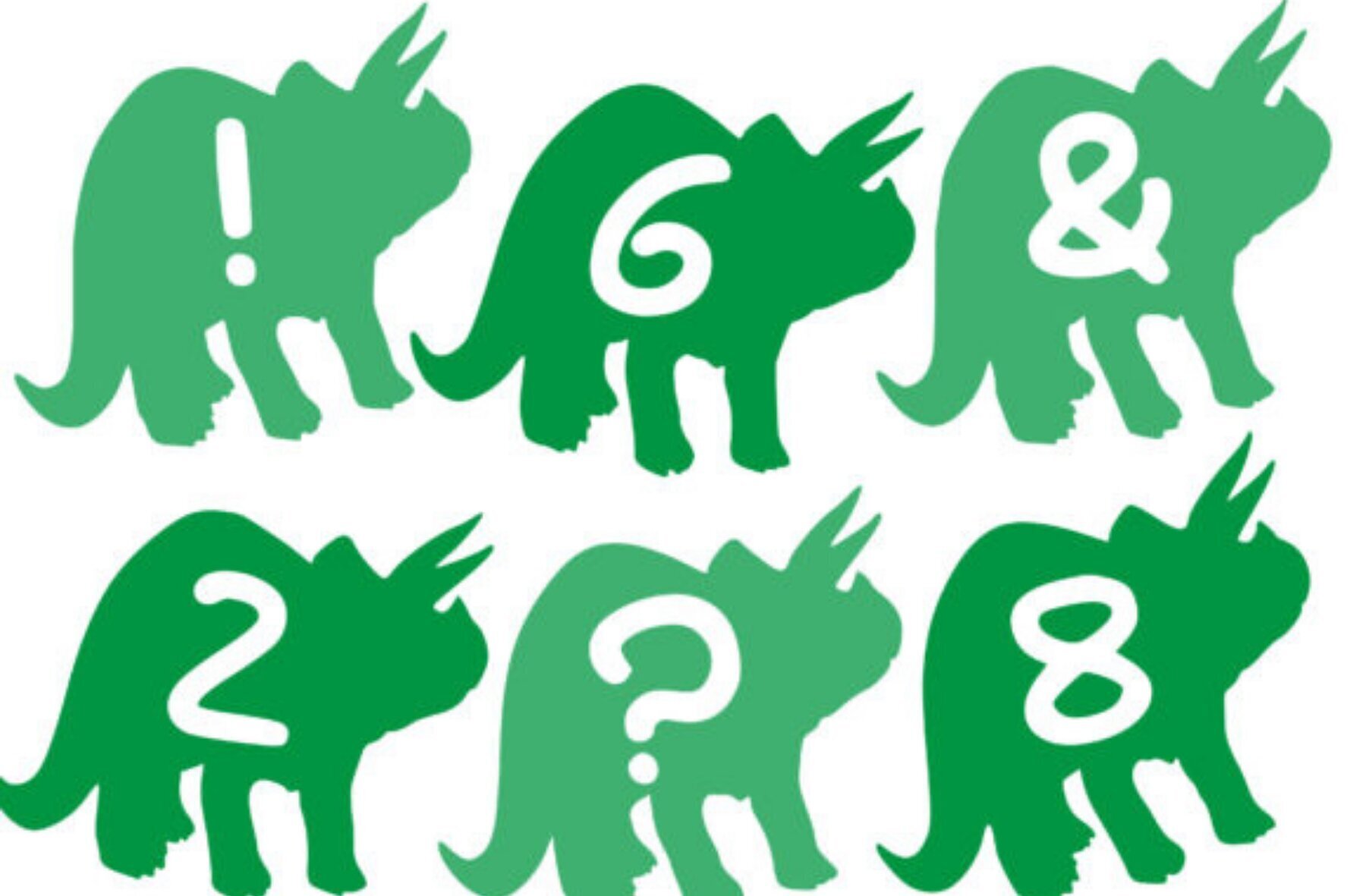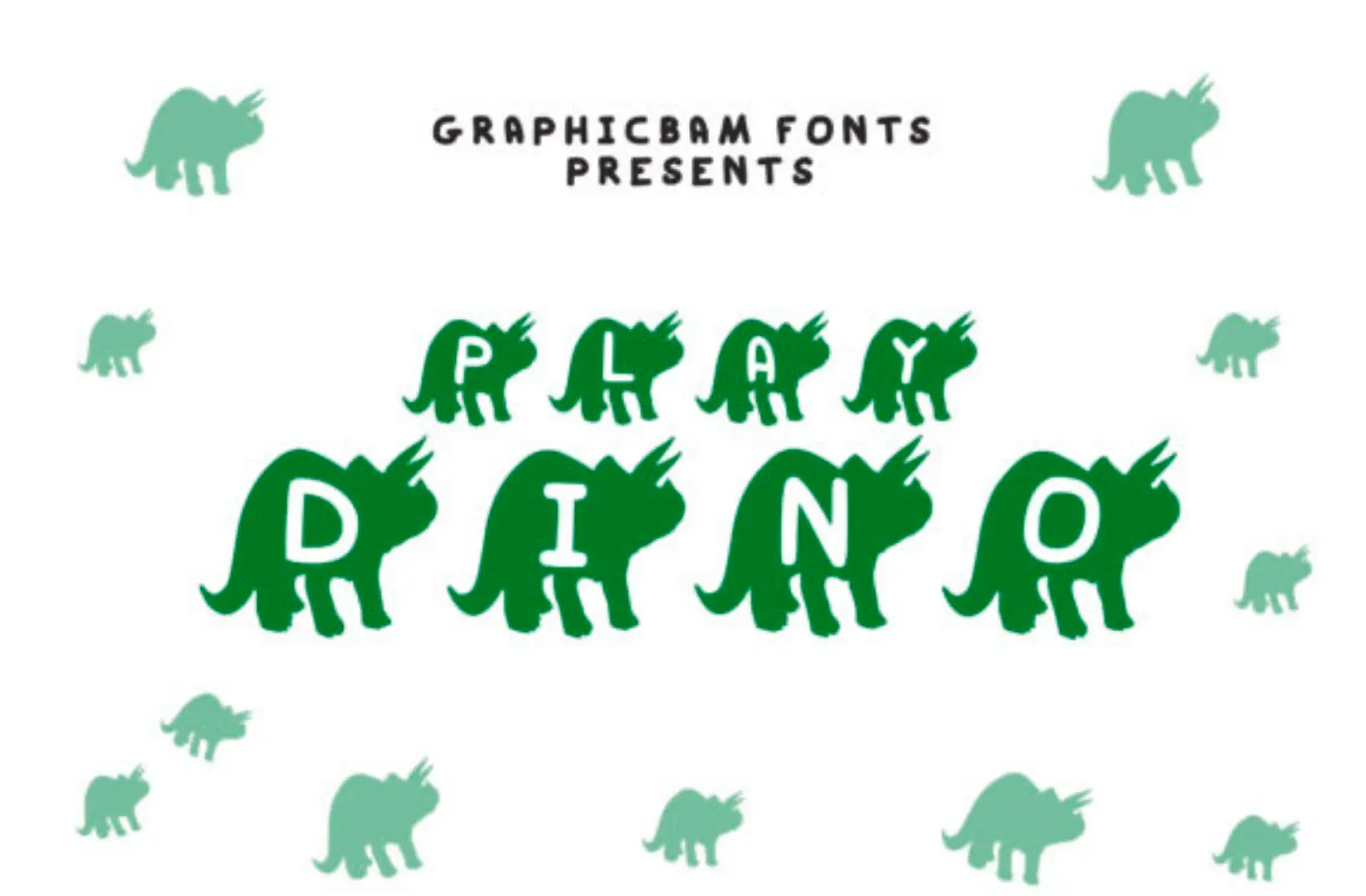
Play Dino Font
Play Dino Regular
Meet Play Dino, a unique decorative font that's bound to capture attention in any design project. With each character showcasing a playful dinosaur, this font adds quirky charm to your typographic endeavors. Ideal for projects requiring a fun and lively element, Play Dino ensures your creations stand out with its amusing yet stylish appeal.Play Dino Font